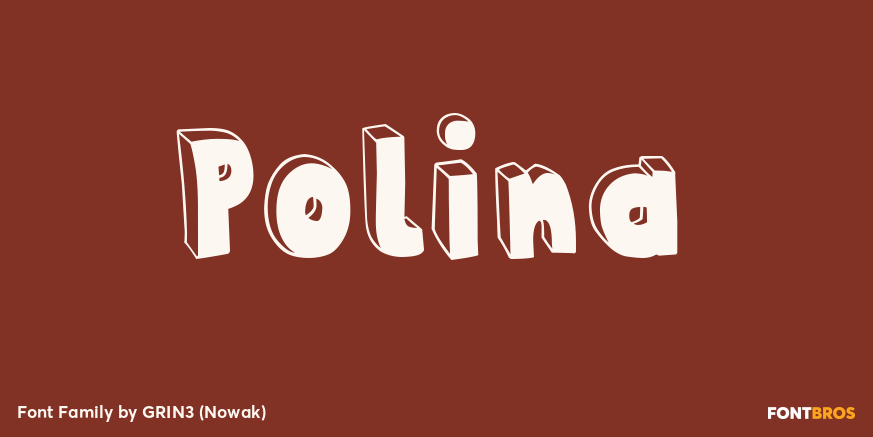
Polina
About Polina
Polina is a handmade, layered type family which includes several textures and shadows. Different font types can be created using various combinations of Polina fonts and colors. Language support includes Western, Central and Eastern European character…